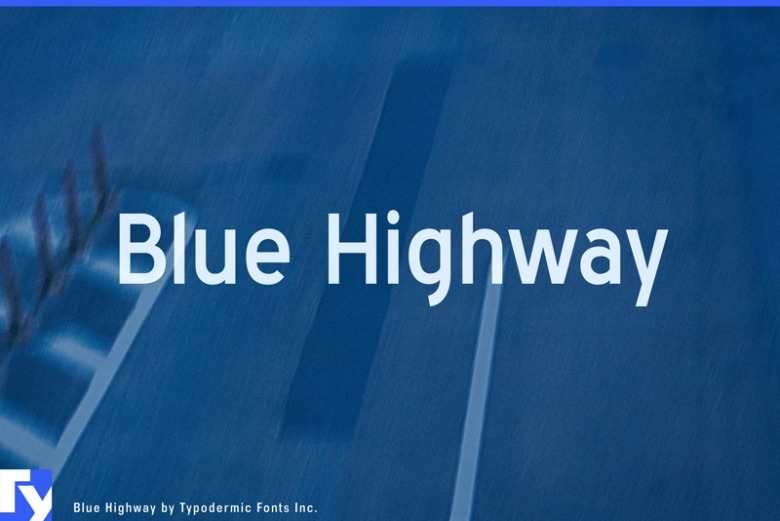
Blue Highway Font
In 1996, I created Blue Highway, a font based Canada/U.S. highway sign lettering. Blue Highway is a clean and well weighted sans serif font, The original version was kind of a mess and subsequent versions weren’t much better. In 2004 I discontinued Blue Highway & replaced it with Expressway. But some people still prefer Blue Highway, despite the technical problems. Recently, I rebuilt Blue Highway and retained the clunkiness, goofy charm & cost of the original (free). Blue Highway 5.0 comes with an updated license agreement which allows all kinds of fun stuff like web embedding, format conversion, modification & embedding in apps. The Blue Highway family includes Regular, Bold, Condensed “D” & Linocut styles and is available in OpenType & TrueType format.